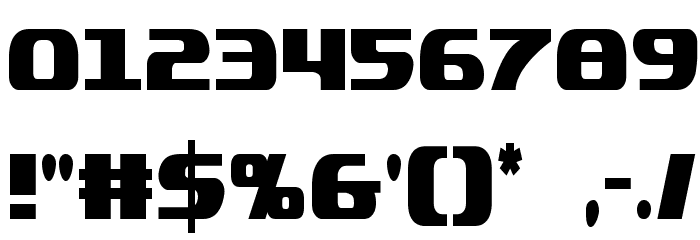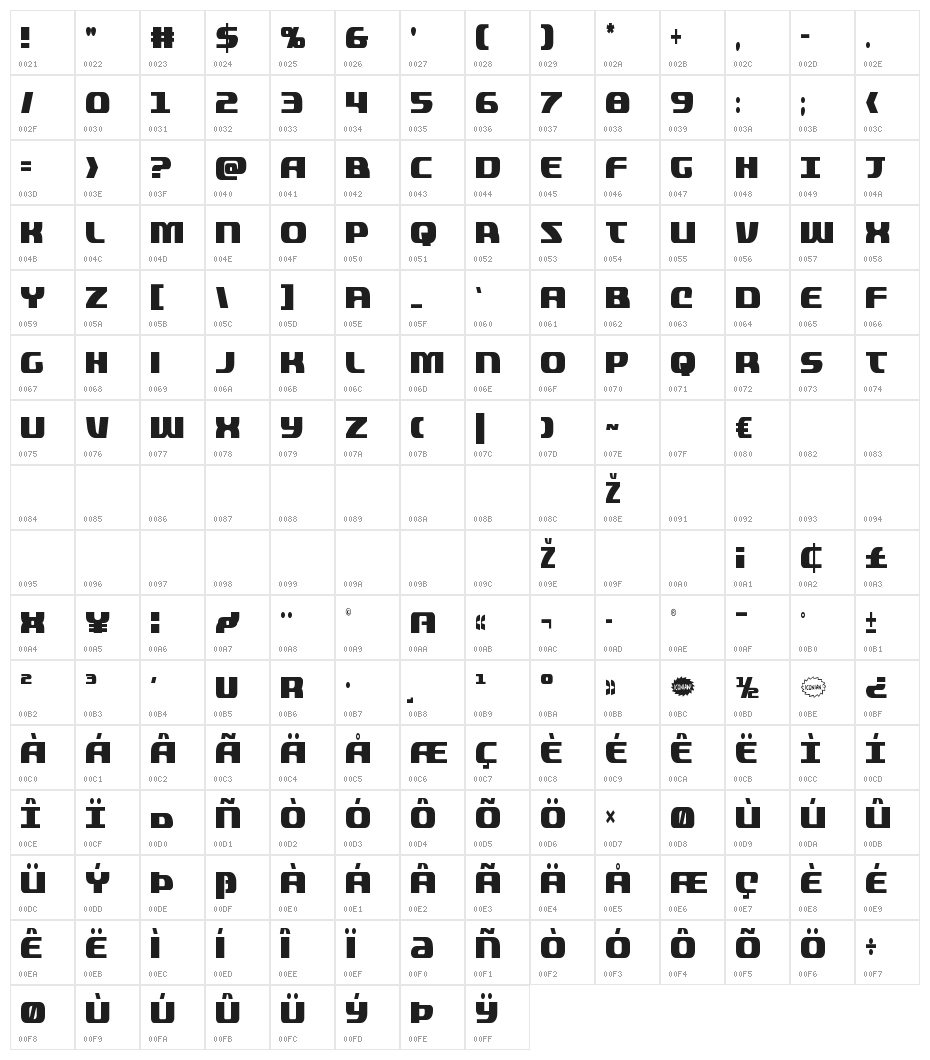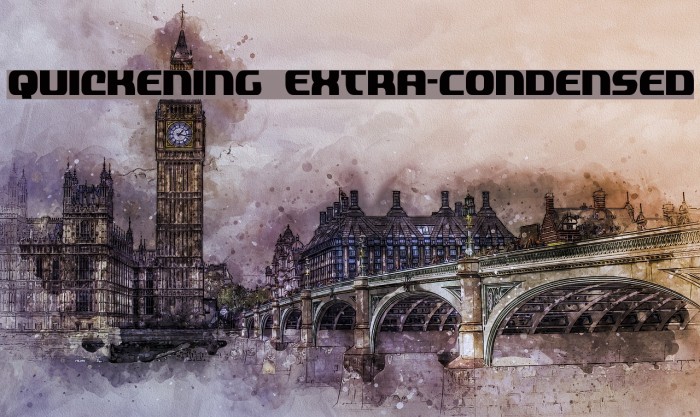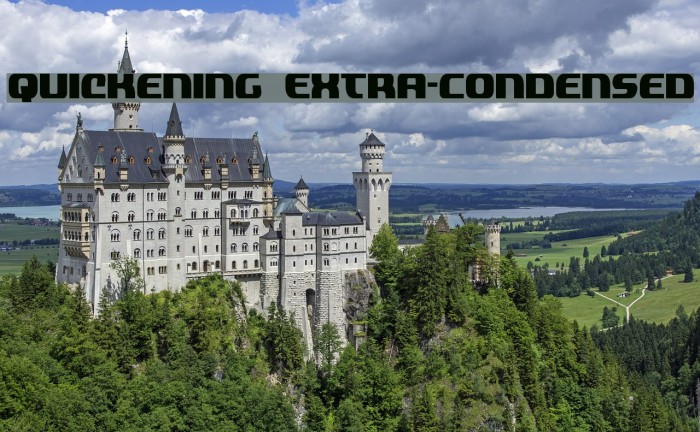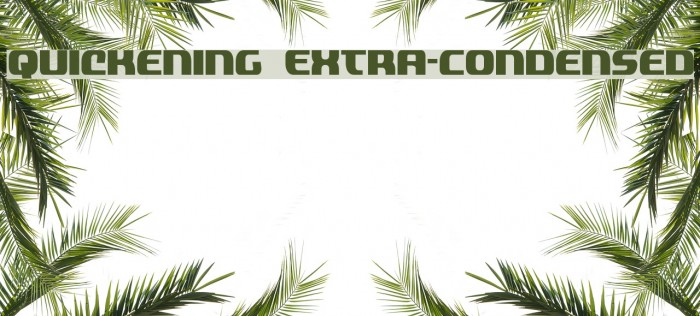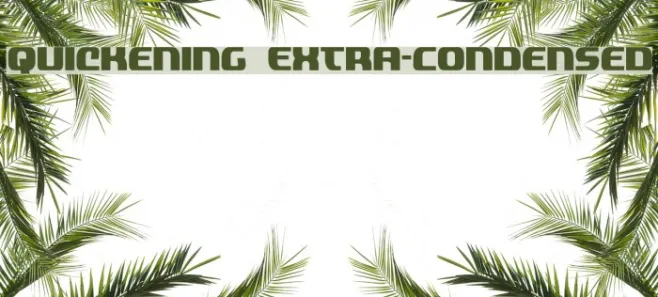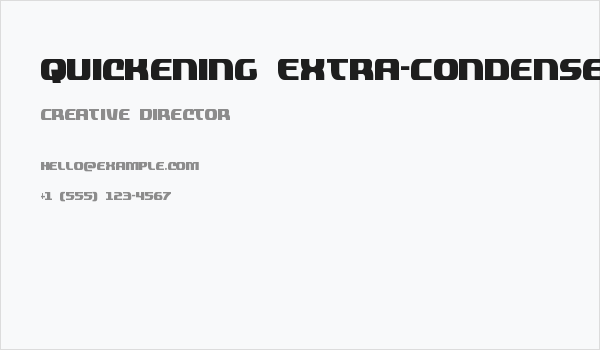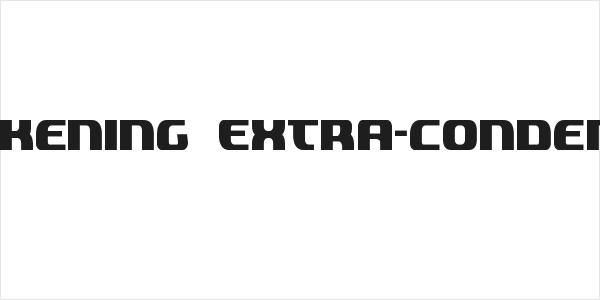
Quickening Extra-Condensed Font
Quickening Extra-Condensed Description
This font features a bold and impactful design with extra-condensed letterforms, creating a strong visual presence. The characters are uniformly thick, with minimal contrast between strokes, giving it a modern and robust appearance. The geometric shapes and sharp edges contribute to its contemporary style, making it suitable for attention-grabbing headlines and titles. The uppercase and lowercase letters maintain a consistent height, enhancing readability while maintaining a compact form. The numerals and special characters follow the same design principles, ensuring a cohesive look across all text elements.
| Proposed Projects | Ideal for posters, banners, branding, and any project requiring a strong, modern typeface. |